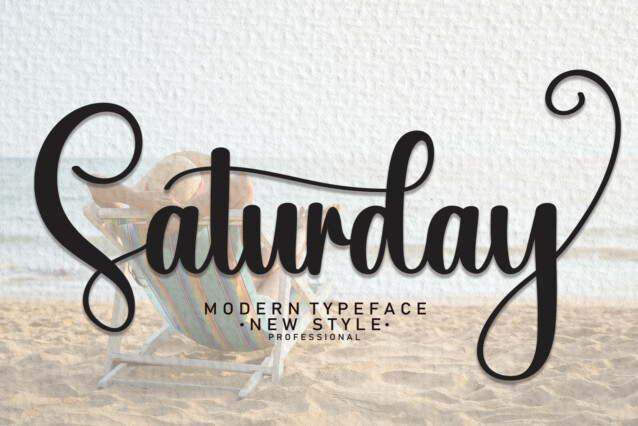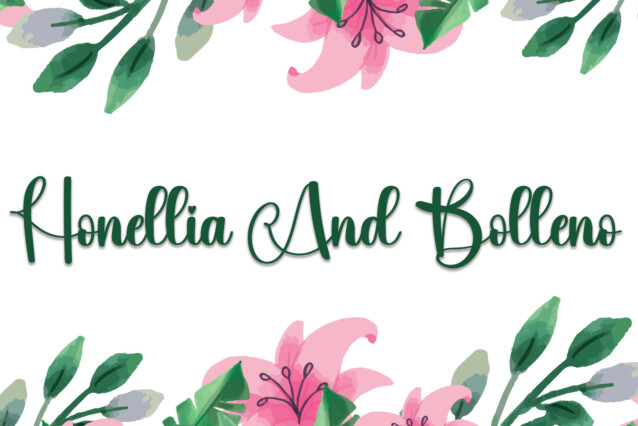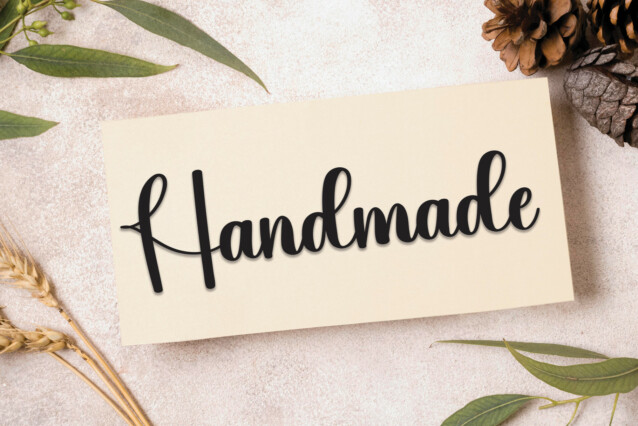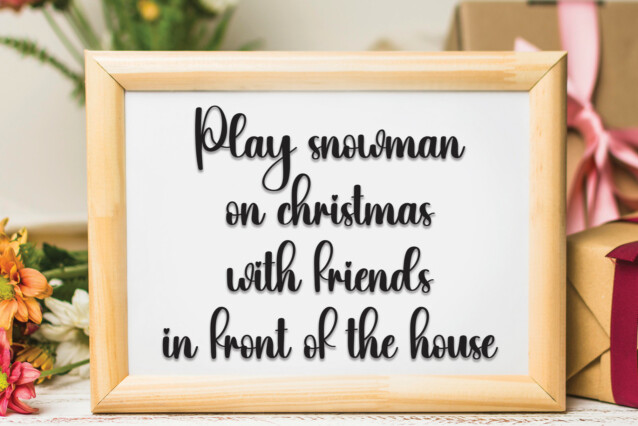
Saturday Script Typeface
Saturday Script Typeface is a graceful, modern calligraphic font. With its beautiful rhythm, this font will help you create gorgeous and classy compositions. Use it for branding projects, invitations, web graphics, cards, and many more!